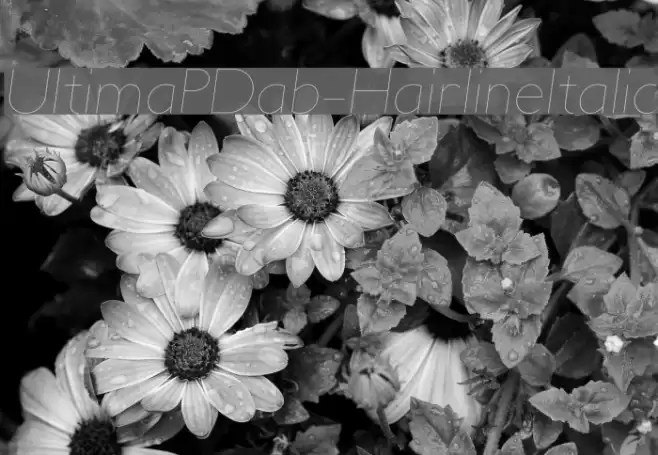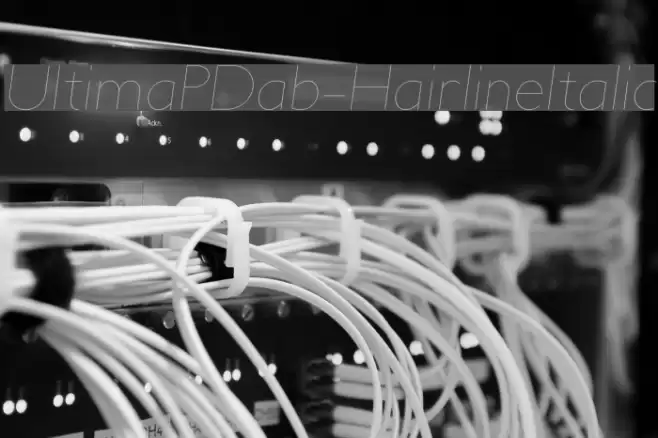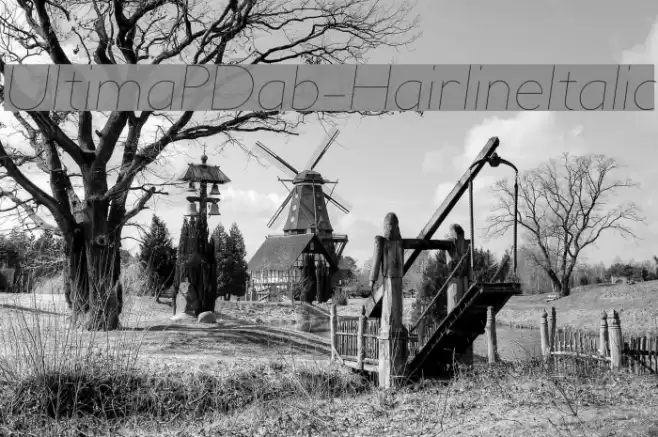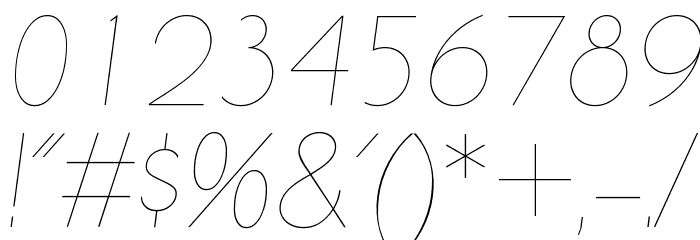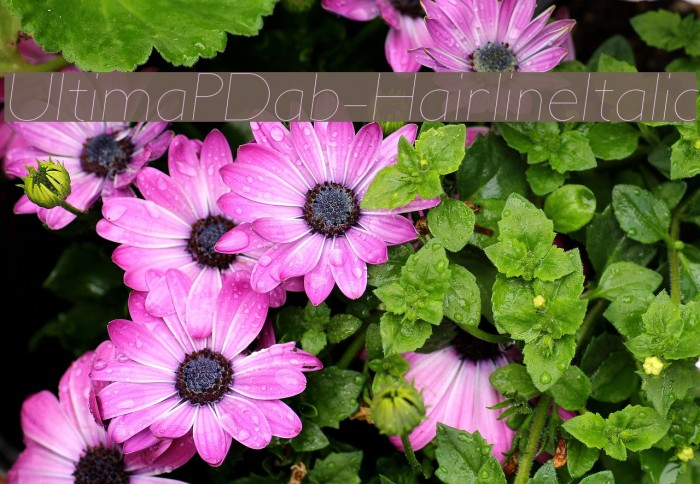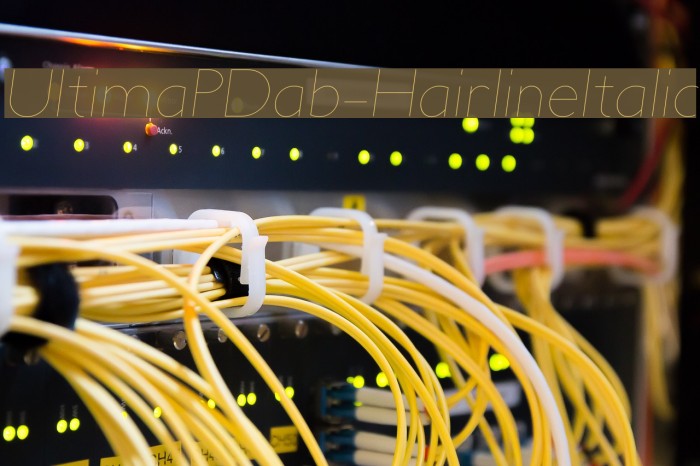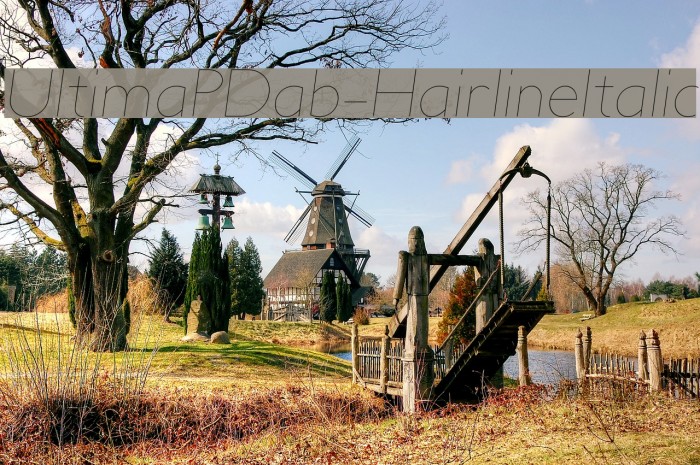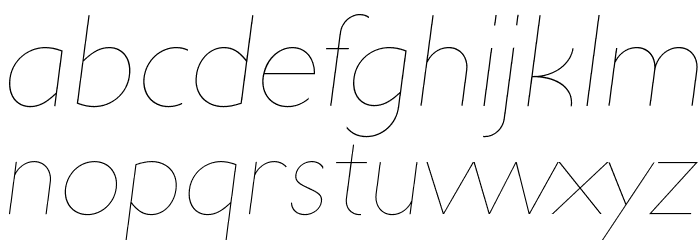
UltimaPDab-HairlineItalic Font
UltimaPDab-HairlineItalic Description
This font features an elegant and modern design with a hairline weight that gives it a delicate and sophisticated appearance. The characters are slightly italicized, adding a sense of movement and fluidity. The uppercase and lowercase letters are consistent in style, with clean lines and minimalistic forms. The numerals and special characters maintain the same thin, refined strokes, ensuring uniformity across all elements. This font's airy and light aesthetic makes it ideal for projects that require a touch of elegance and modernity.
A modern, hairline italic font with a delicate and sophisticated style from Uncategorized fonts.
- Proposed Projects: Ideal for fashion magazines, luxury branding, wedding invitations, and minimalist design projects.
- Weight: Light
- Overall Style: Modern, Elegant
- Use Case: Headlines, Logos, Invitations